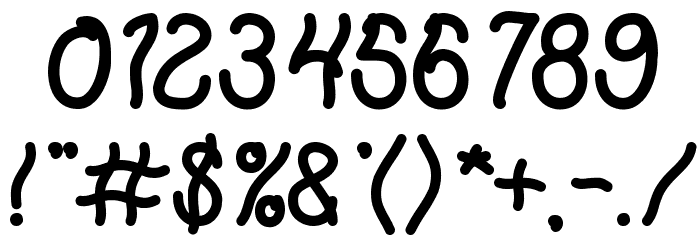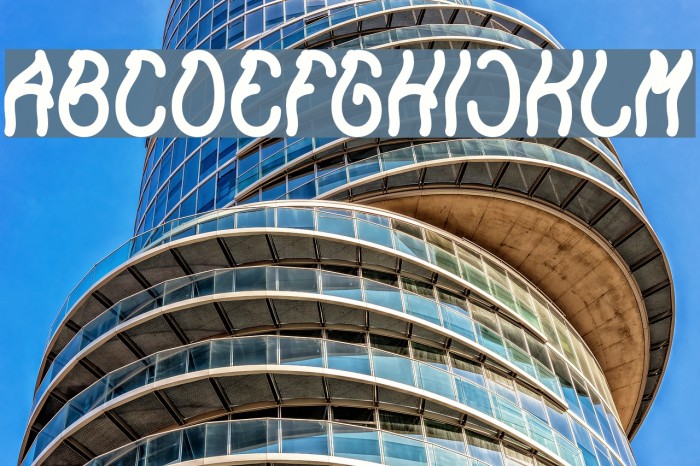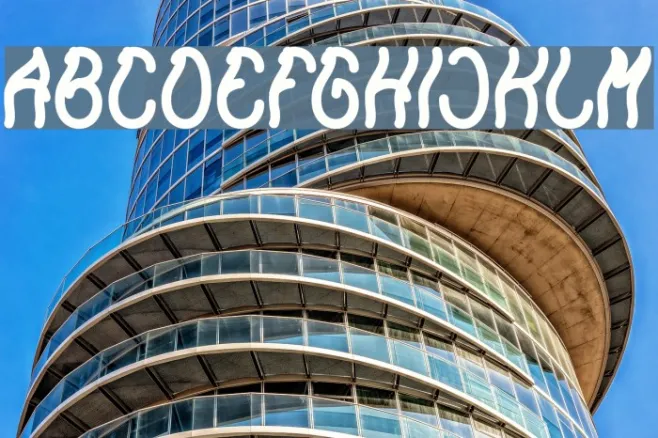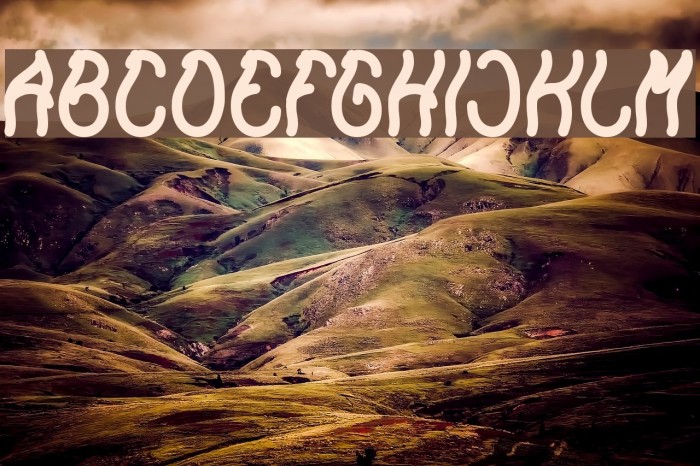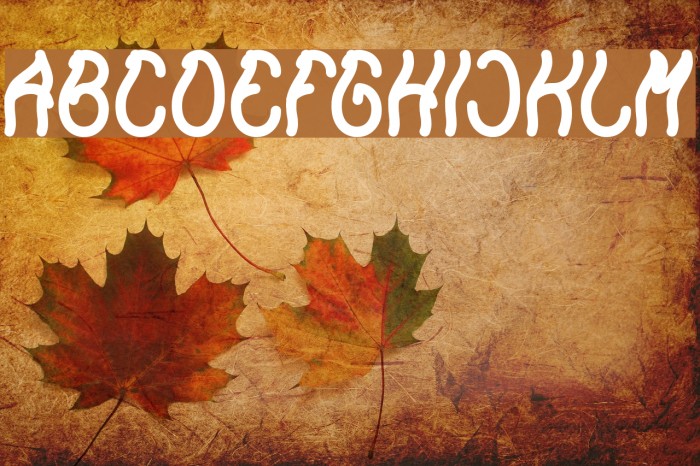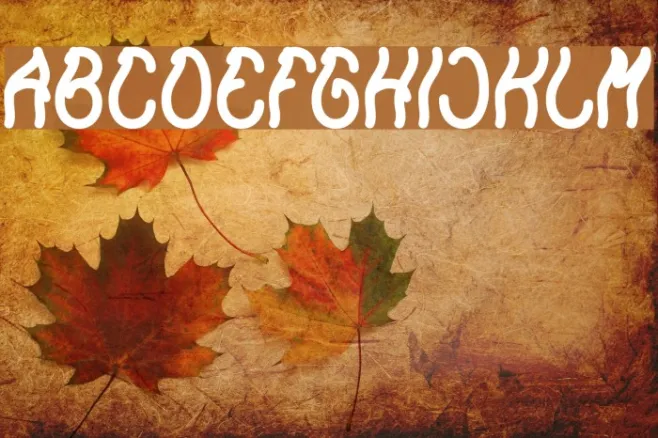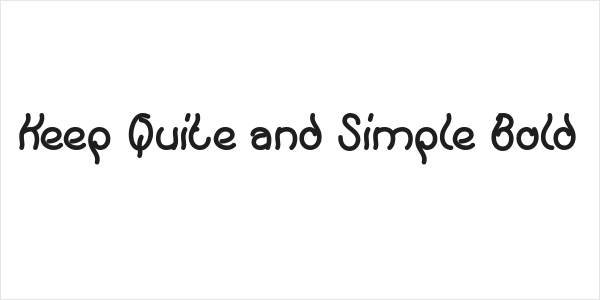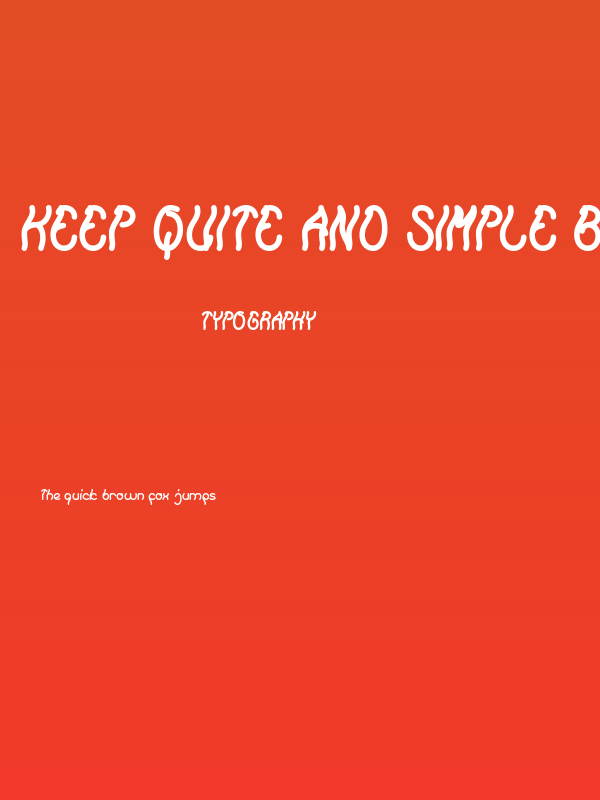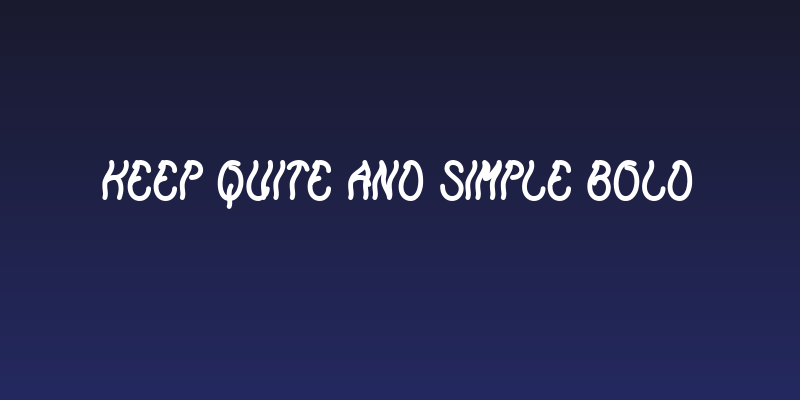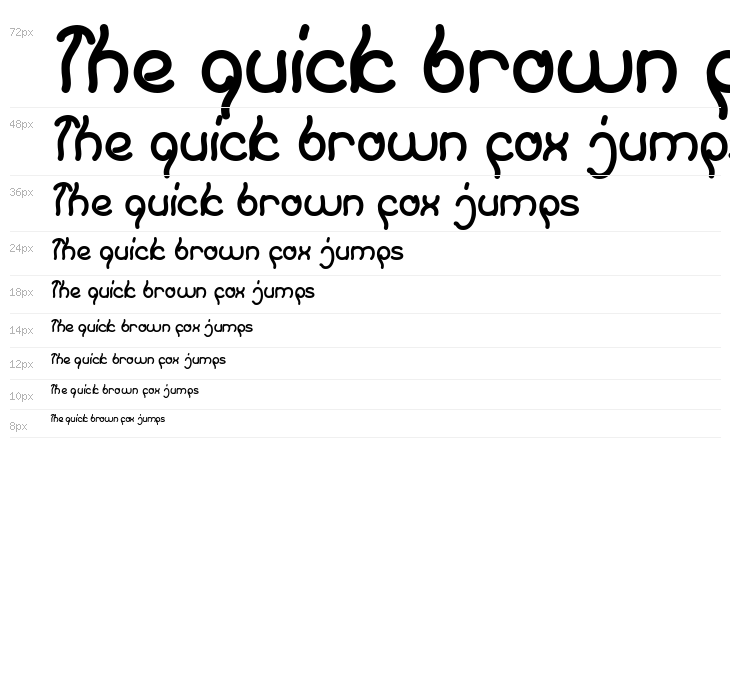
Keep Quite and Simple Bold Font
Keep Quite and Simple Bold Description
This font features a playful and whimsical design, characterized by its bold and rounded letterforms. Each character exhibits a unique, hand-drawn quality with slightly irregular strokes, giving it a lively and informal appearance. The uppercase and lowercase letters maintain a consistent style, with rounded edges and a moderate weight that enhances readability. The numerals and special characters follow the same design principles, ensuring a cohesive look across all glyphs. This font's distinctiveness lies in its organic flow and the subtle variations in stroke width, which add to its charm and versatility.